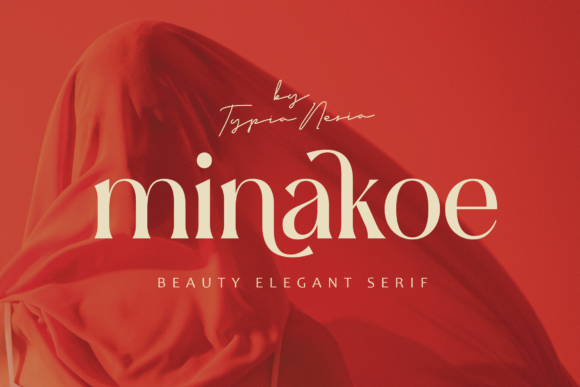
Introducing Minakoe Font, the epitome of beauty, elegance, and aesthetics in the world of typography. With its modern and expressive feminine style, Minakoe Font is the ultimate choice for all your book heading needs. Created by the renowned Typia Nesia, this serif font is truly a masterpiece that will elevate your designs to new heights.
Minakoe Font is not your ordinary font; it is a work of art that combines the best of classic and contemporary design elements. Its unique features, including alternates and ligatures, allow you to create stunning and perfect typography designs. Whether you're working on a luxury logo and branding project, a classy editorial design, or a woman's magazine, Minakoe Font will add a touch of sophistication and elegance to your work.
Imagine the impact of your cosmetic brand or fashion promotion with Minakoe Font. Its graceful and refined aesthetics will capture the attention of your audience, leaving a lasting impression. Take your art gallery branding or museum exhibit to the next level with the timeless appeal of Minakoe Font. Its versatility makes it suitable for a wide range of projects, including historical architecture, boutique branding, stationery design, blog design, and modern advertising.
Minakoe Font is not just a font; it is a reflection of your creativity and passion. Use it to design captivating card invitations or add a touch of elegance to your book or cover titles. Its exquisite curves and artistic details will make your special events truly memorable.
Let Minakoe Font be the centerpiece of your home decor, adding a touch of sophistication to your living space. Its aesthetic appeal will transform any room into a haven of elegance and style.